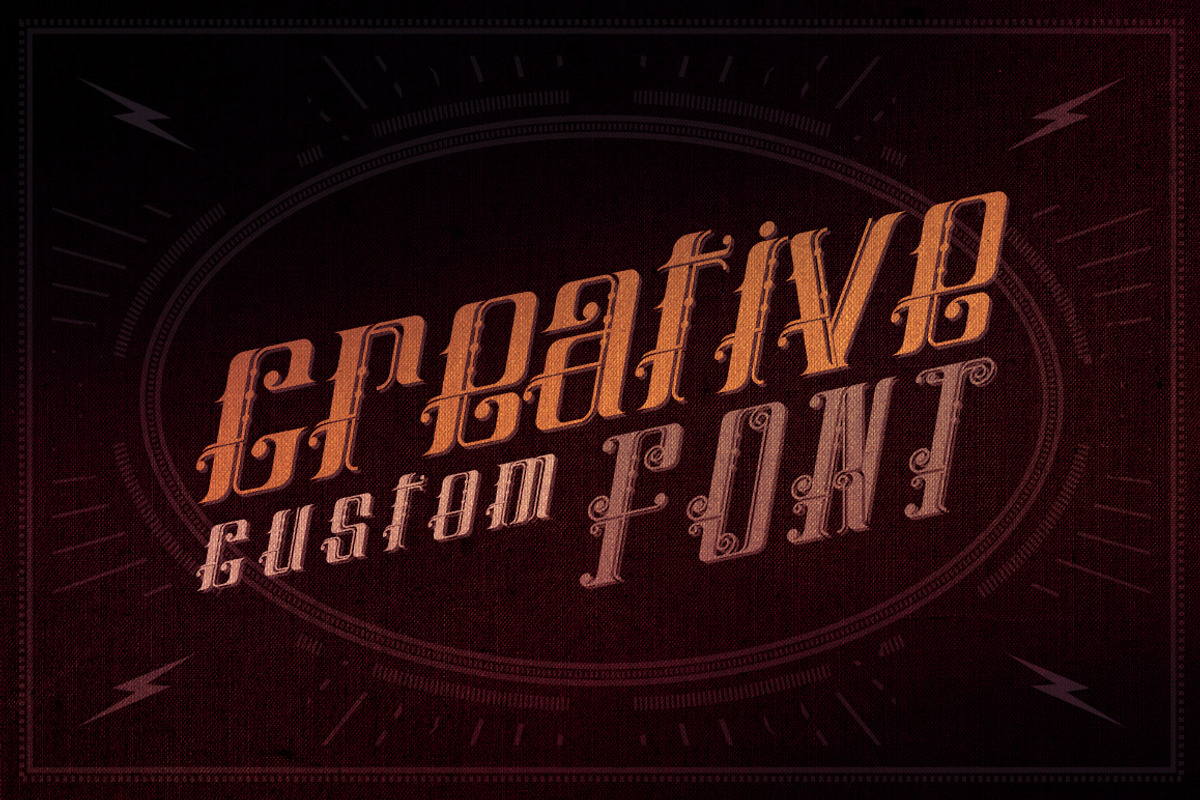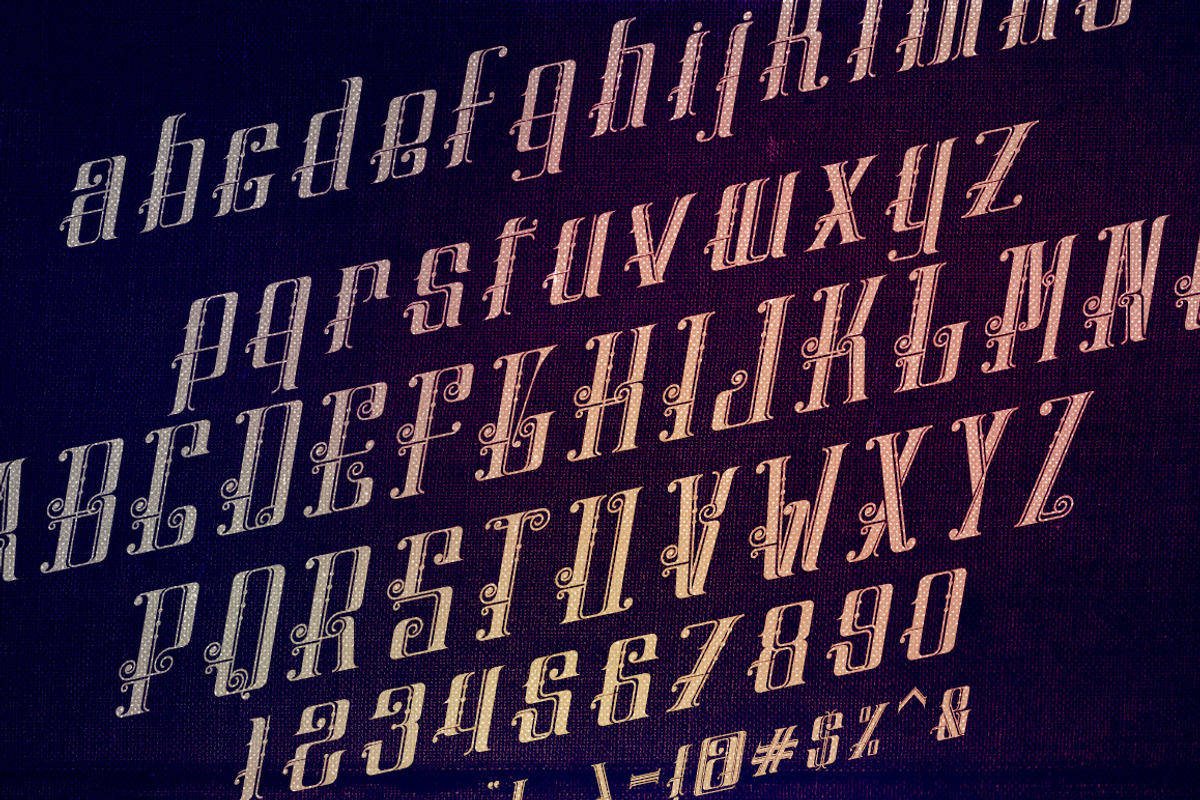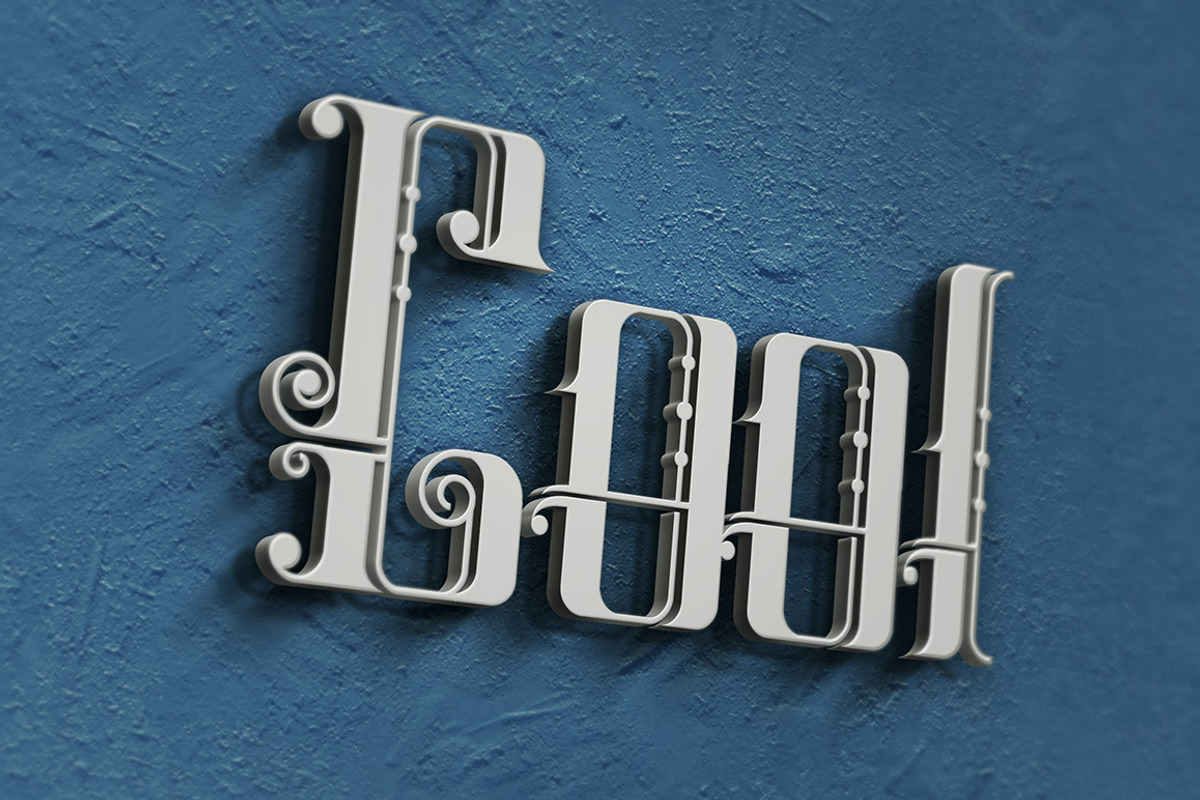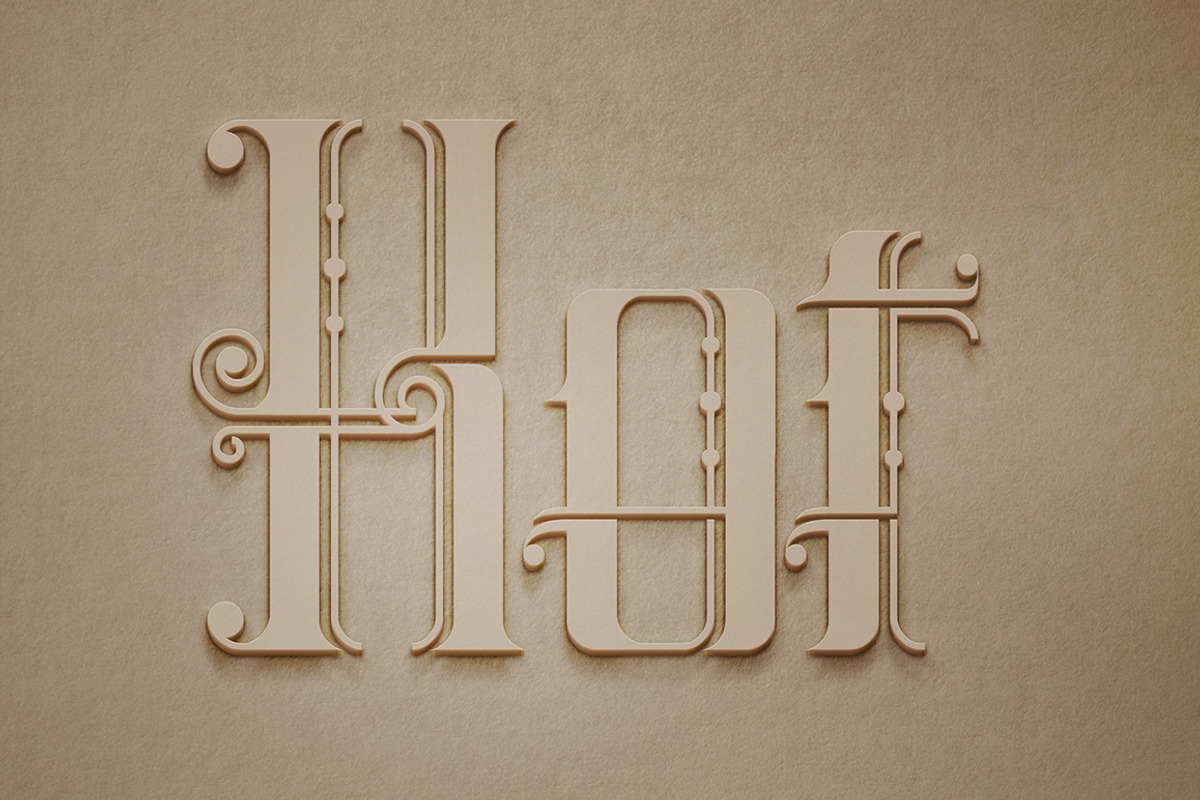
Memento Font
Memento Font by Cruzine is a font selected for branding, posters, packaging, typography.
Memento Font by Cruzine fits naturally into Branding, posters, packaging, typography.